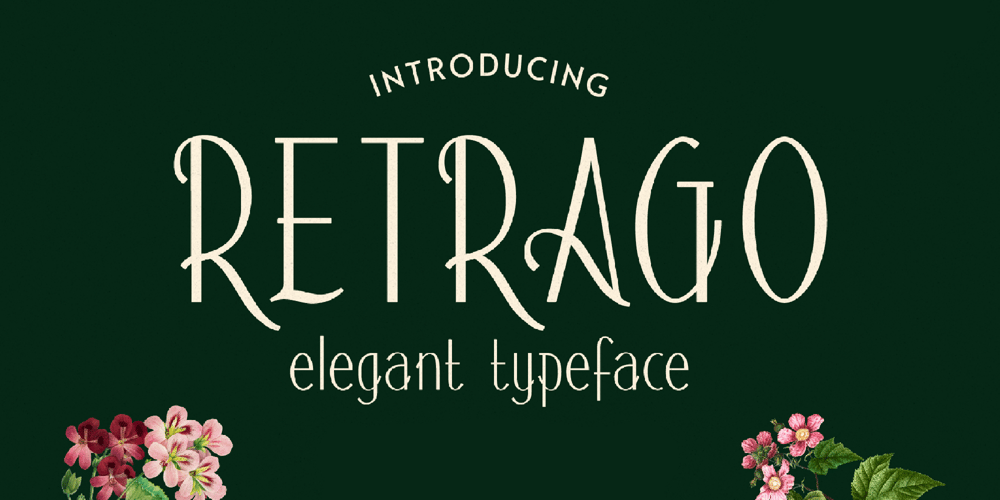
Retrago
Retrago font
Retrago Font Family was designed by Igor Ovsyannykov and published by Hipfonts. Retrago contains 1 styles and family package options. Introducing Retrago, a serif font that embodies the epitome of class and modernity. Crafted with precision and elegance, this typeface is designed to elevate the aesthetic of any project, making it an ideal choice for those seeking to imbue their work with a sense of sophistication and style. Retrago’s unique charm lies in its ability to blend the timeless allure of serif fonts with contemporary design elements, creating a beautiful font that is both versatile and distinctive.Retrago’s character set is meticulously designed, featuring sleek lines and refined curves that radiate luxury and refinement. The font’s balanced proportions and thoughtful design nuances make it particularly well-suited for high-end design projects such as wedding invitations, where it adds a touch of elegance and exclusivity. Its ability to convey beauty and sophistication makes it a perfect choice for creating memorable and impactful invitations that stand out.Beyond wedding invitations, Retrago’s versatility extends to a wide range of applications. In the realm of presentations, this font brings a professional and polished look, ensuring that your message is delivered with clarity and style. Its modern serifs and clean lines lend an air of authority and credibility, making your presentations not only visually appealing but also highly effective.For logo designs, Retrago offers a blend of classic charm and modern sophistication, making it an excellent choice for brands looking to project an image of luxury, elegance, or timelessness. Its distinctive character ensures that logos crafted with Retrago are memorable and make a strong visual impact.In editorial design, Retrago shines by adding a layer of sophistication to magazine spreads, articles, and publications. Its readability and elegant design enhance the reading experience, making it a favorite among designers who value both aesthetics and functionality.Lastly, Retrago’s refined aesthetics make it an exceptional choice for packaging design. Whether it’s luxury goods, boutique products, or high-end cosmetics, Retrago adds a touch of class and elevates the perceived value of products, making them irresistible to consumers.